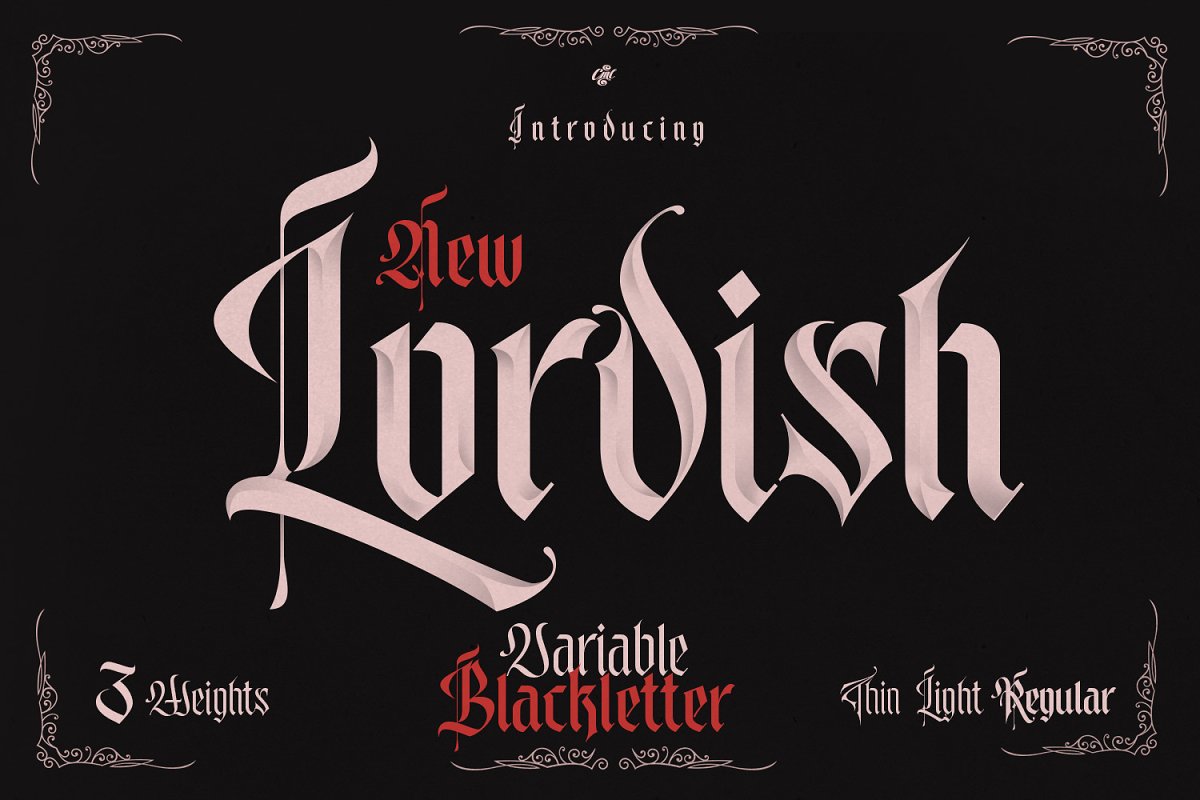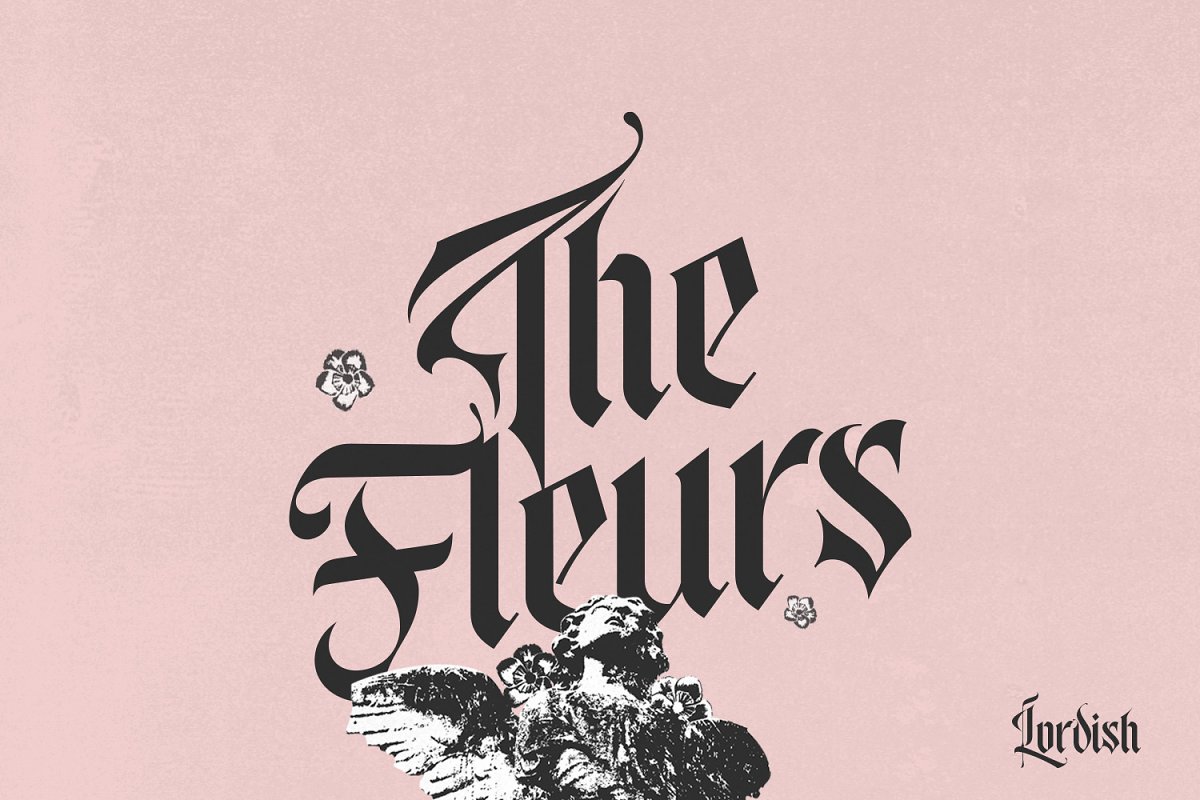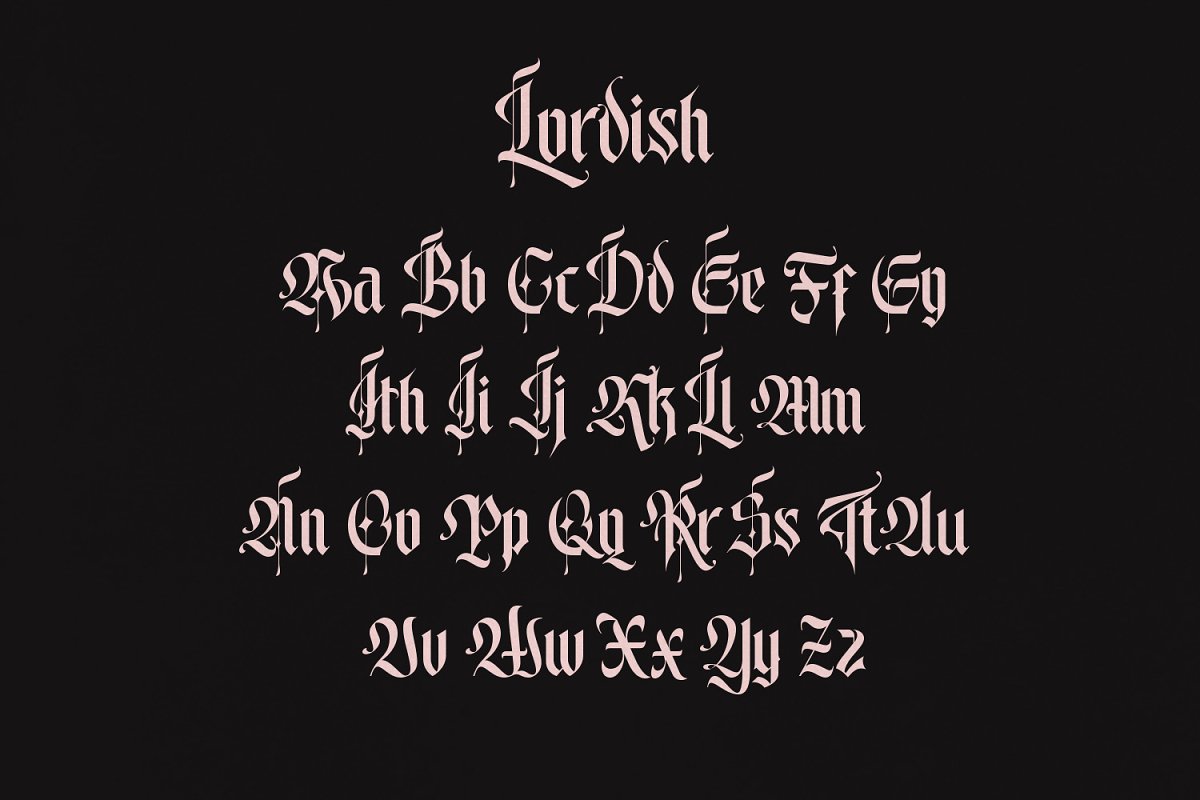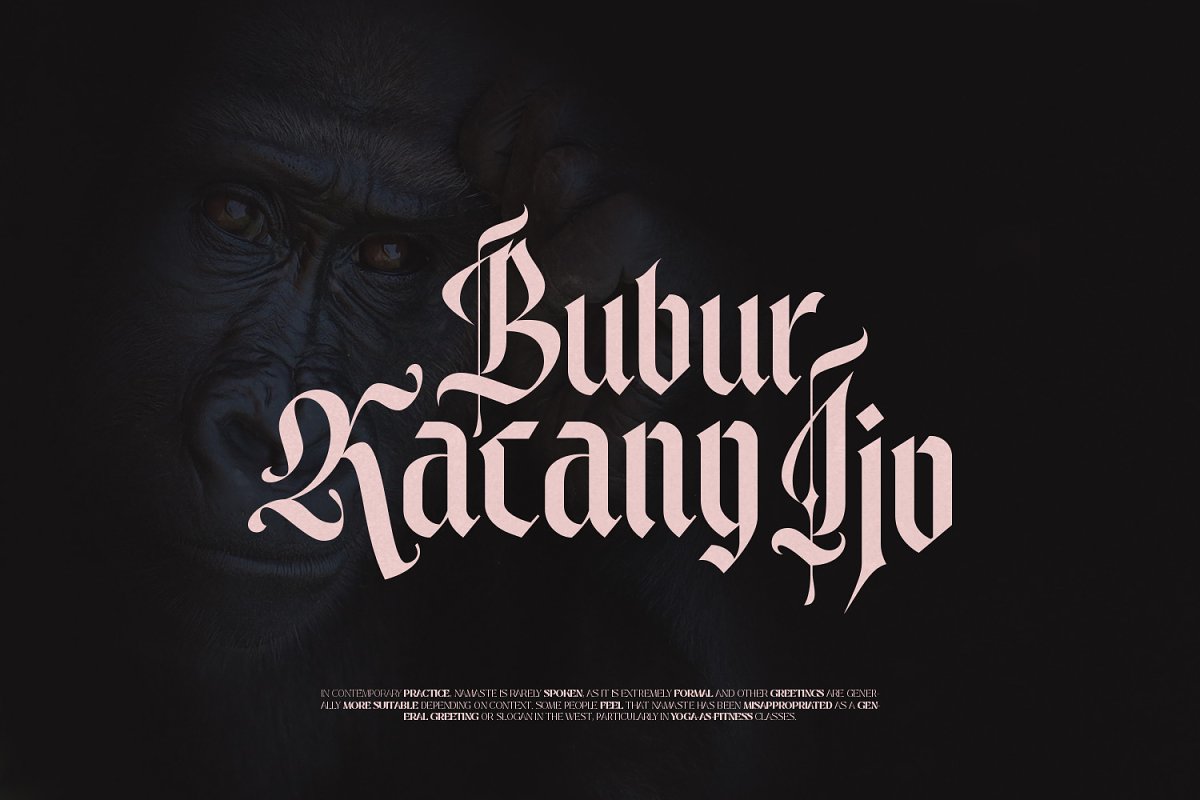
About the Lordish Blackletter Font
2023 New Updates on the uppercase & lowercase, Introducing Lordish, a unique blackletter for your design, Lordish consist 3 weights thin, light, and regularIncludes uppercase, lowercase, punctuation, and international characters, Best for display font, tattoo font, or other styles, Bonus ornaments in the download file, You may also likeOthelie Gothic Fonthttps://creativemarket